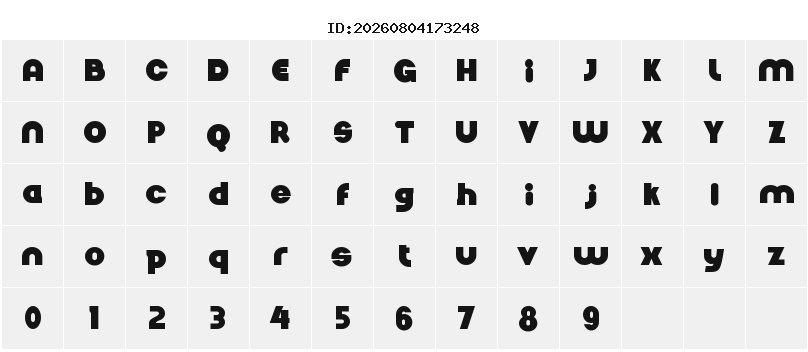
Nickel Bumpy Preview
• Font Name: Nickel Bumpy
• Full Font Name: Nickel Bumpy
• Version: Version 1.00 October 21, 2012, initial release
• Designer: Galdino Otten
About Nickel Bumpy.ttf
Nickel Bumpy.ttf is a modern, elegant sans-serif font designed for ultimate readability and visual harmony. Perfect for branding, headlines, web design, and print materials.